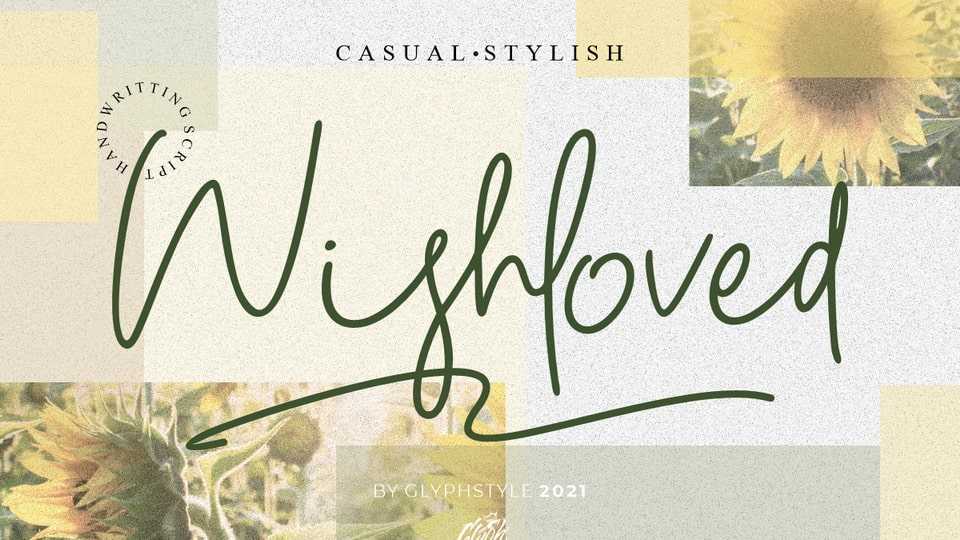
Download Wishloved font, a casual stylish handwritten typeface, a beautiful writing font with natural line movements that make it pretty and elegant.